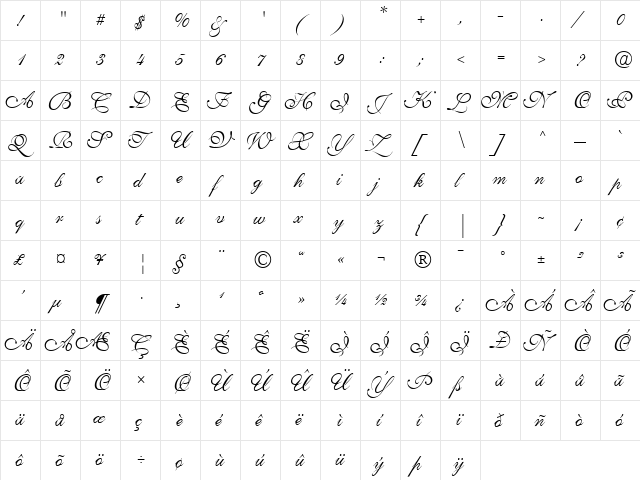
Shelley Medium
Design Context for Shelley Typeface
Shelley is a composed and adaptable typeface that performs quietly and consistently across a wide range of design contexts.